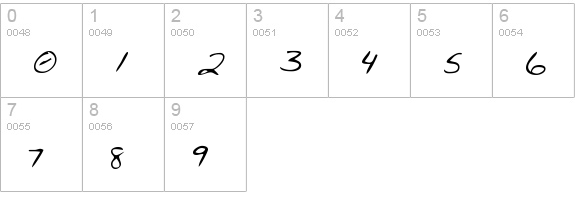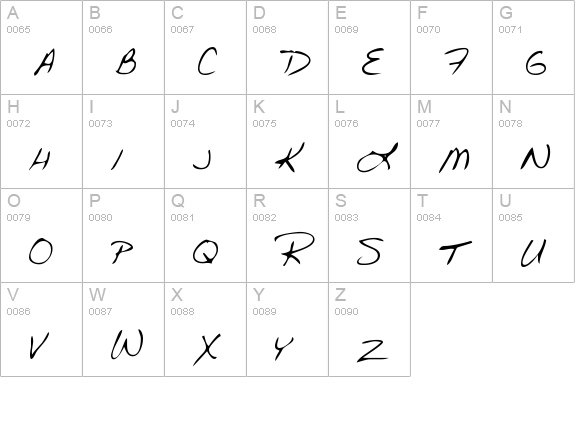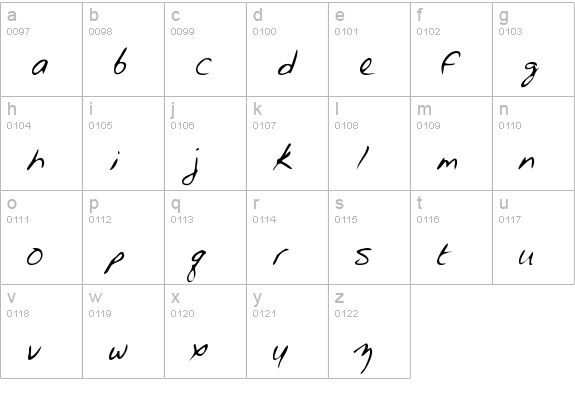
MarciesHand Regular Font Details
MarciesHand Regular is the standard, neutral variant in the MarciesHand typeface family \xE2\x80\x94 well suited to general body text, paragraphs, and standard typographic work.
MarciesHand Regular is a charming and whimsical font that adds a touch of personality to any design project. With its hand-drawn appearance, this font exudes a sense of creativity and authenticity. Each letter is carefully crafted with unique strokes and curves, giving it a playful and artistic feel. This font is perfect for a variety of applications, such as greeting cards, invitations, logos, and branding materials. Its versatility allows it to be used in both digital and print media, making it a must-have for any designer's toolkit. One of the best features of MarciesHand Regular is that it is available for free. Yes, you read that right – this font can be downloaded at no cost from FontsMarket.com. With just a few clicks, you can have this delightful font in your collection and start using it in your projects right away. Whether you're a professional designer or someone looking to add a personal touch to their creations, MarciesHand Regular is sure to impress. Its unique style and free availability make it a standout choice for anyone seeking a font that stands out from the crowd. So why wait? Head over to FontsMarket.com and download MarciesHand Regular now.